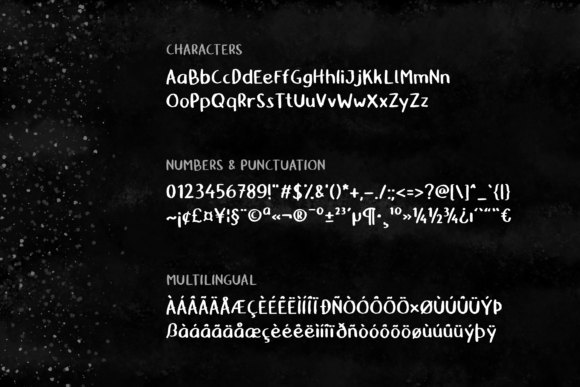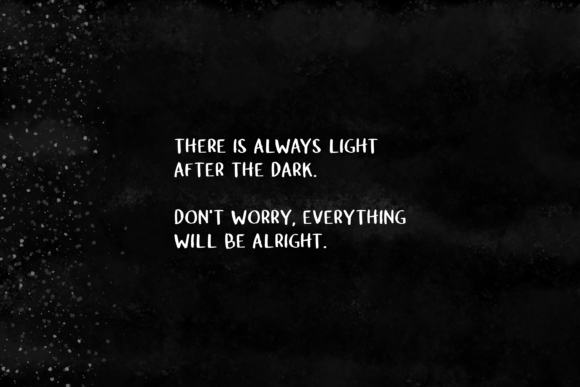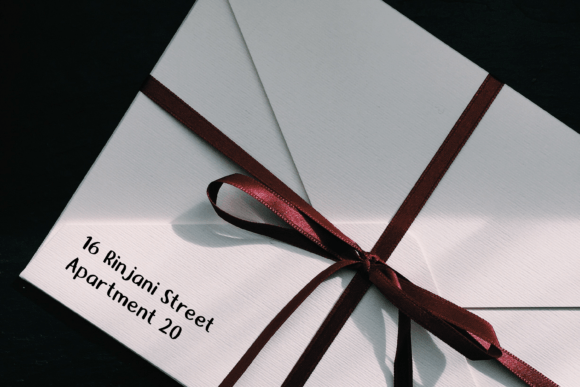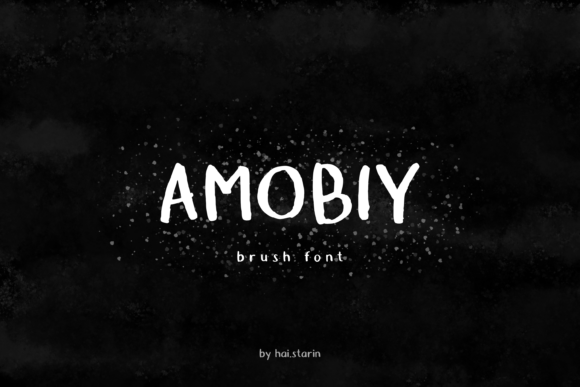
Introducing Amobiy Font: The Perfect Messy Brush Font for Your Creative Projects
Are you a designer or crafter looking for a unique and casual font to add a personal touch to your projects? Look no further than Amobiy Font! This messy brush font is perfect for creating posters, printed quotes, digital designs, or any projects that require a distinctive and eye-catching look.
What is Amobiy Font?
Amobiy Font is a carefully crafted messy brush font that exudes a sense of creativity and playfulness. Its irregular strokes and imperfect lines give it a charming, hand-painted feel that’s sure to capture the attention of your audience. Whether you’re designing a poster, creating a social media graphic, or crafting a quote, Amobiy Font is the perfect choice for adding a touch of personality to your work.
Key Features of Amobiy Font
- Messy Brush Style: Amobiy Font features a unique messy brush style that’s perfect for creating casual and laid-back designs.
- Unique and Eye-Catching: The font’s irregular strokes and imperfect lines make it stand out from more traditional fonts, adding a touch of personality to your designs.
- Highly Versatile: Amobiy Font can be used for a wide range of projects, from posters and printed quotes to digital designs and more.
- Easy to Read: Despite its messy style, Amobiy Font is surprisingly easy to read, making it perfect for use in both digital and print designs.
Use Cases for Amobiy Font
So, what can you use Amobiy Font for? The possibilities are endless! Here are a few ideas to get you started:
- Posters and Flyers: Add a touch of personality to your posters and flyers with Amobiy Font’s unique messy brush style.
- Printed Quotes: Create inspiring and eye-catching printed quotes that are perfect for social media, blogs, or websites.
- Digital Designs: Use Amobiy Font to add a casual and laid-back touch to your digital designs, from social media graphics to website headers.
- Crafting and DIY Projects: Amobiy Font is perfect for crafters and DIY enthusiasts who want to add a personal touch to their projects, from handmade cards to scrapbooking.
Tips for Using Amobiy Font
Here are a few tips for getting the most out of Amobiy Font:
- Experiment with Colors: Amobiy Font looks great in a variety of colors, so don’t be afraid to experiment and find the perfect hue for your design.
- Play with Sizes: The font’s messy style works well at a range of sizes, from large and bold to small and subtle.
- Combine with Other Fonts: Amobiy Font pairs well with a range of other fonts, so feel free to get creative and experiment with different combinations.
Amobiy Font is a unique and versatile messy brush font that’s perfect for designers and crafters looking to add a personal touch to their projects. With its irregular strokes and imperfect lines, this font is sure to capture the attention of your audience and add a touch of personality to your designs. So why not give Amobiy Font a try and see what amazing creations you can come up with?